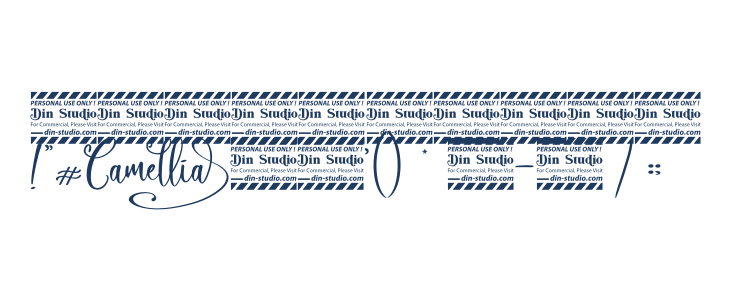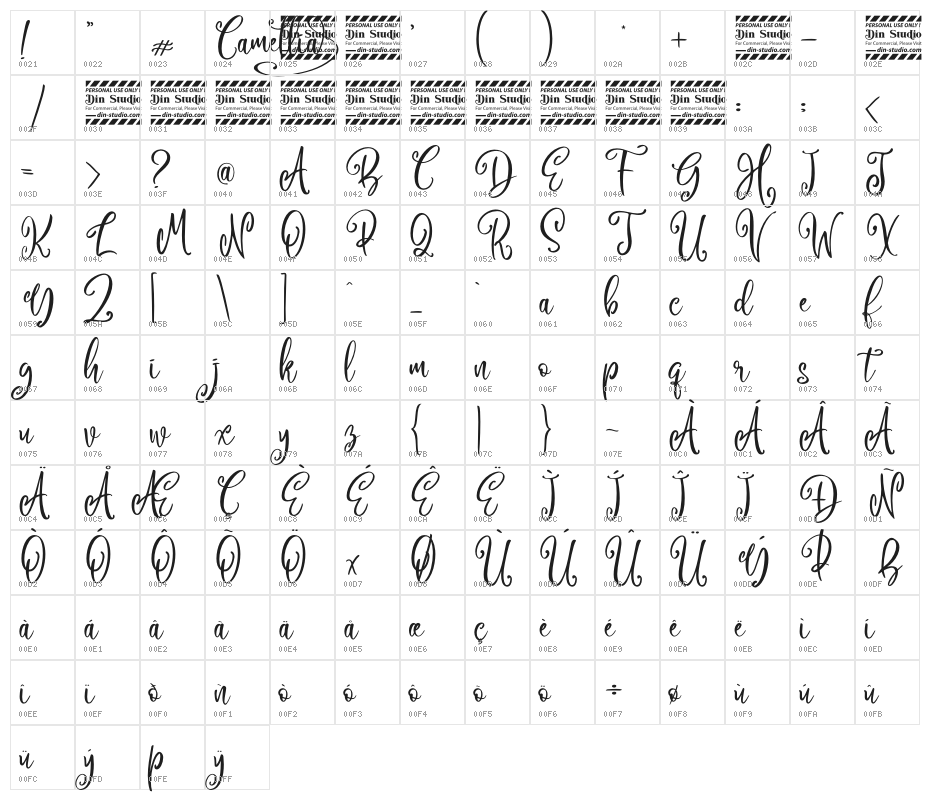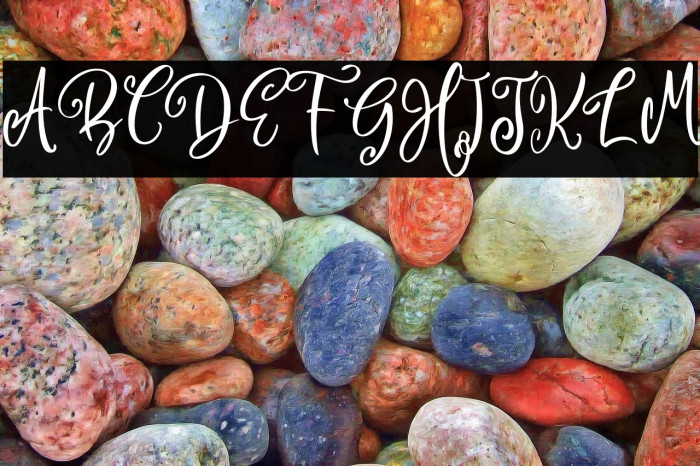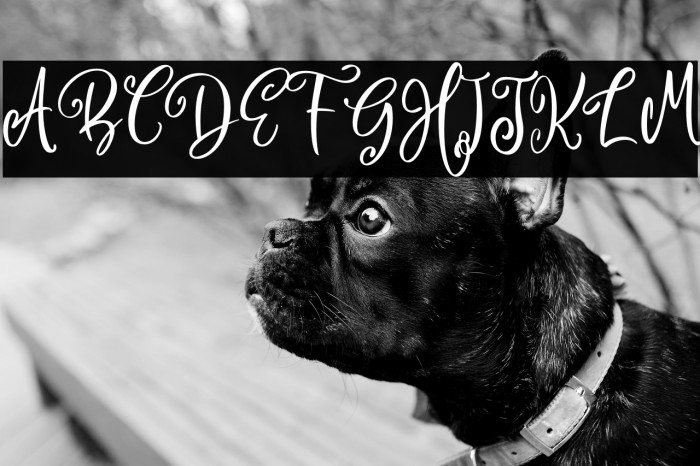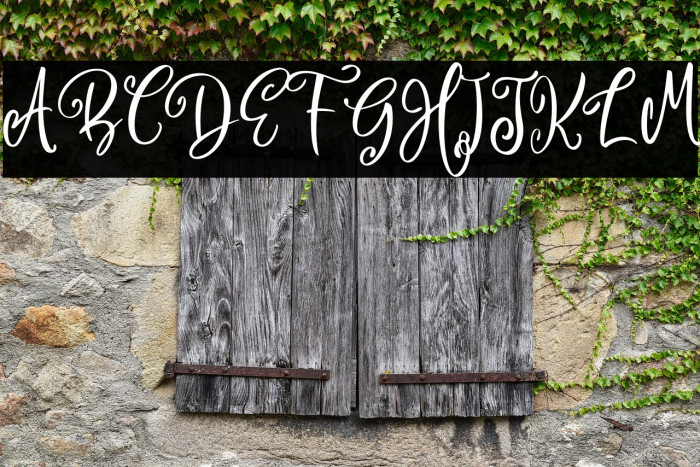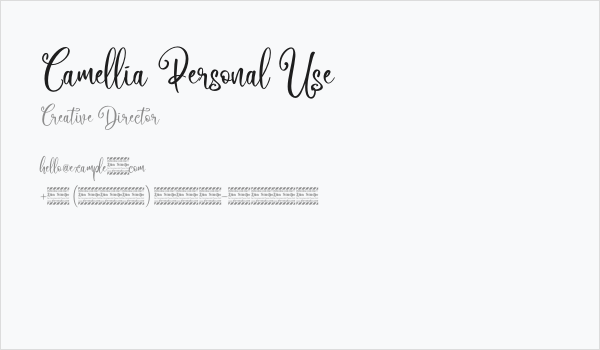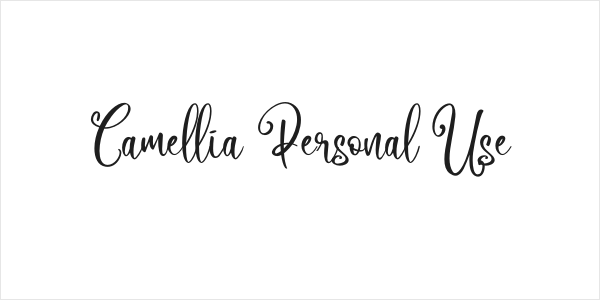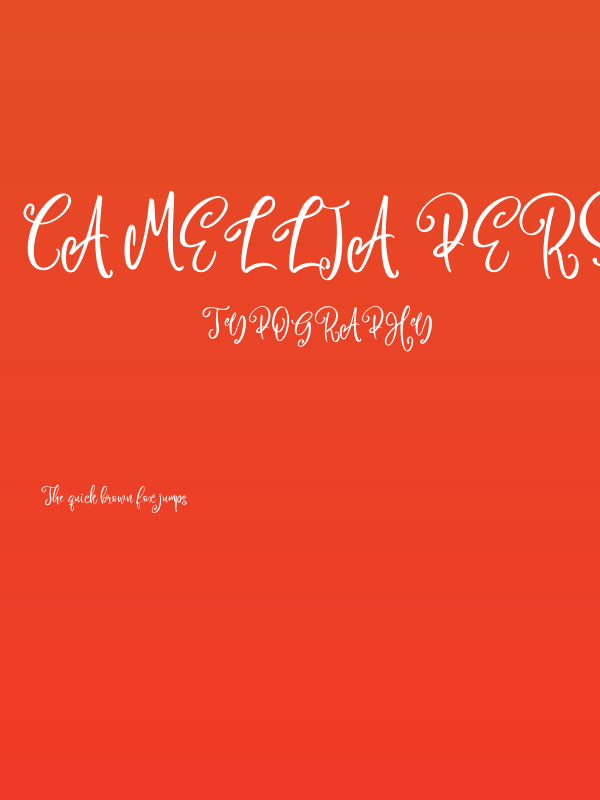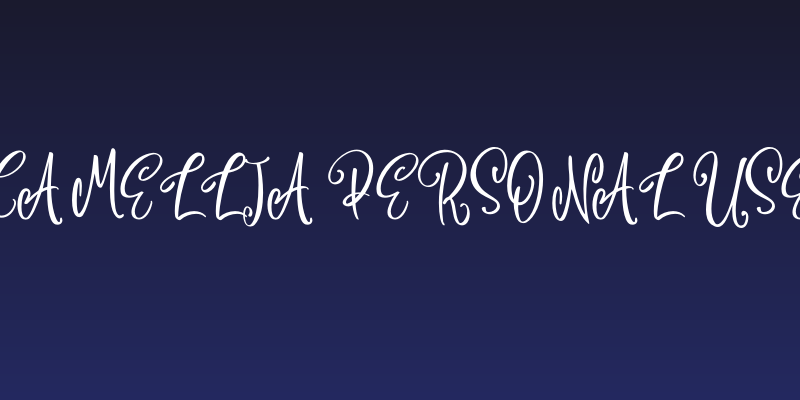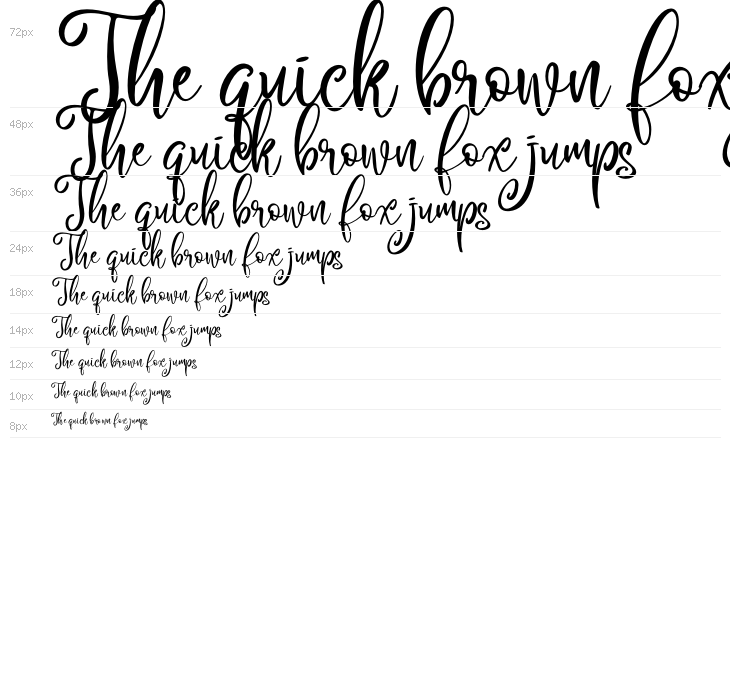
Camellia Personal Use Font
Camellia Personal Use Description
This font exudes a graceful and elegant script style, characterized by its flowing, cursive letterforms. The uppercase letters are ornate with sweeping curves and loops, while the lowercase letters maintain a consistent fluidity, enhancing readability. The font features a harmonious balance between thick and thin strokes, adding a touch of sophistication. Its decorative nature makes it ideal for projects that require a personal and artistic touch. The special characters are crafted with the same attention to detail, ensuring a cohesive look across all text elements.